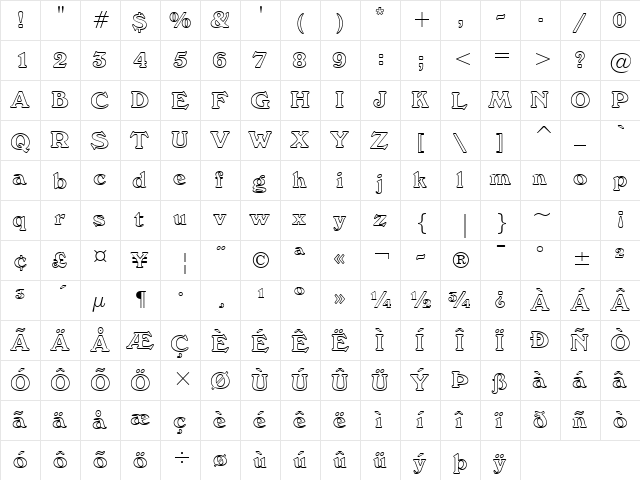
Windsor Oul BT Regular
Design Context for Windsor Oul BT Typeface
Windsor Oul BT takes a measured approach to typography — its balanced proportions and neutral character make it a reliable workhorse for both digital and print work.